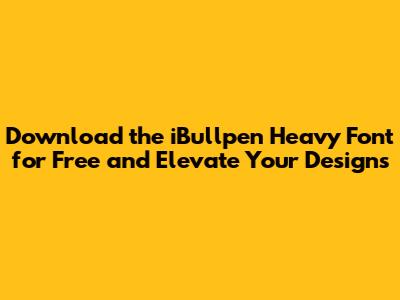
Hey design enthusiasts! Are you on the hunt for a bold and impactful font that can make your projects stand out? Well, look no further, because today we're diving deep into the world of the iBullpen Heavy font, and guess what? You can snag it for a free download! Yeah, you heard that right. We're talking about a font that brings serious personality and weight to any design, whether you're crafting a killer poster, a striking logo, or an eye-catching social media graphic. So, buckle up, guys, because we're about to explore why this particular typeface is a must-have in your design arsenal and how you can get your hands on it without spending a dime.
Why iBullpen Heavy is a Designer's Dream
Let's be real, finding the perfect font can sometimes feel like searching for a needle in a haystack. You need something that's not only aesthetically pleasing but also versatile and legible. The iBullpen Heavy font ticks all those boxes and then some. Its defining characteristic is its incredible heft. This isn't just a regular bold font; it's a heavyweight champion. The thick strokes and solid structure give it an undeniable presence, making it perfect for headlines, titles, and any text that needs to command attention. Think of it as the font equivalent of a powerful statement – it doesn't whisper; it roars.
But don't let its boldness fool you into thinking it's clunky or unrefined. The iBullpen Heavy font boasts surprisingly clean lines and a well-balanced form. This means it maintains legibility even at smaller sizes, although its true magic truly shines when it's given space to breathe in larger applications. It's the kind of font that designers often refer to when they need something with a bit of a rugged, industrial, or even a vintage vibe, but it’s versatile enough to adapt to more modern and minimalist aesthetics too. Imagine using it for a craft brewery logo, a band poster for a rock concert, or even for the title of a powerful documentary. The possibilities are genuinely endless, and that's what makes a font like this so valuable in your toolkit.
So, if you're looking to inject some serious visual impact into your next project, the iBullpen Heavy font is definitely worth considering. Its robust nature, coupled with its surprising clarity, makes it a fantastic choice for a wide array of design needs. And the best part? We're talking about a free download here, which means you can experiment and incorporate it into your designs without any financial commitment. It's a win-win situation for any creative looking to level up their game!
Once you've identified a reliable source, the download process is usually as simple as clicking a "Download" button. The font file will typically be in a compressed format, like a .zip file. You'll need to extract this file to access the font files themselves, which are usually in .ttf (TrueType Font) or .otf (OpenType Font) format. After extracting, you'll need to install the font onto your computer. On Windows, you can usually do this by right-clicking the font file and selecting "Install." On a Mac, you can open the font file and click "Install Font" in the Font Book application. Once installed, the iBullpen Heavy font should appear in the font selection menus of all your design software, like Adobe Photoshop, Illustrator, InDesign, or even Microsoft Word.
Remember, the availability of free fonts can change, and sometimes what's free today might not be tomorrow, or the licensing might be updated. So, if you find the iBullpen Heavy font available for free download, it's a great idea to grab it sooner rather than later, especially if you can see yourself using it in future projects. Always prioritize security and legality by sticking to trusted sources. Happy downloading, and get ready to make some seriously cool designs!
Unleash Your Creativity with iBullpen Heavy
Now that you know how to get your hands on the iBullpen Heavy font, the real fun begins: using it! This typeface is an absolute powerhouse when it comes to making a statement, and its versatility means you can apply it across a surprisingly broad spectrum of design projects. Whether you're a seasoned pro or just starting out in the design world, incorporating a font like iBullpen Heavy can instantly elevate your work and give it a distinct edge. Let's explore some killer ways you can unleash your creativity with this robust font.